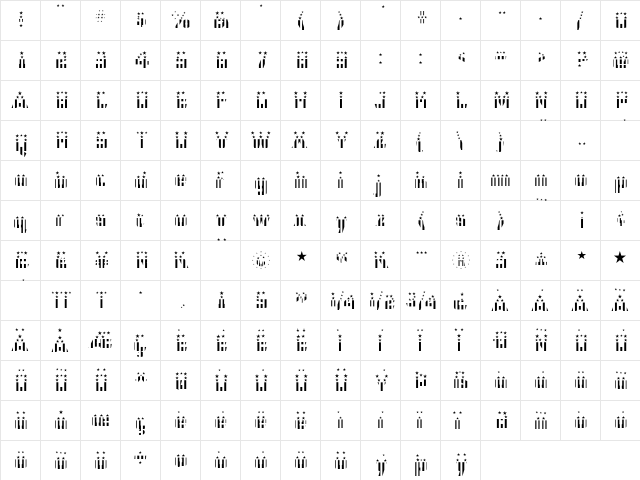
CFB1 American Patriot SOLID 2 Bold
Design Context for CFB1 American Patriot SOLID 2 Typeface
CFB1 American Patriot SOLID 2 is a composed and adaptable typeface that performs quietly and consistently across a wide range of design contexts. Its bold stroke weight gives it real presence on the page.